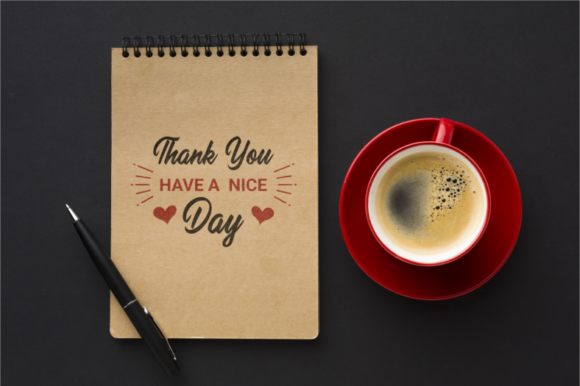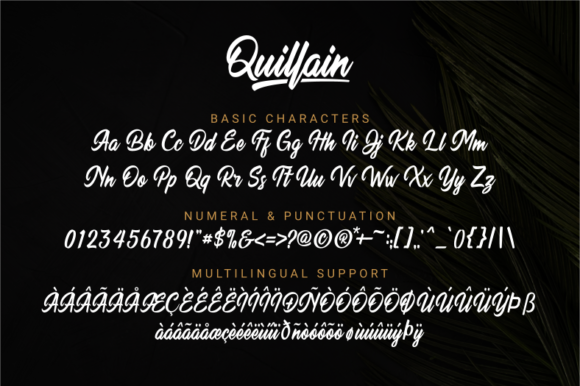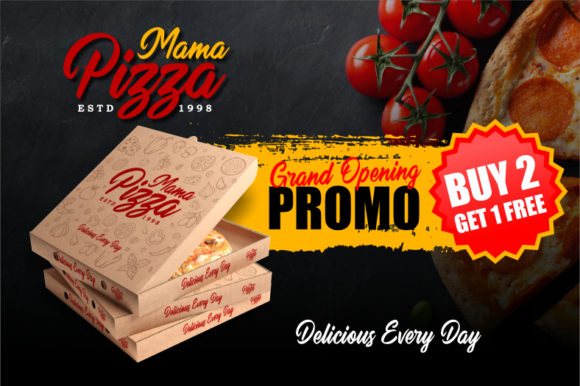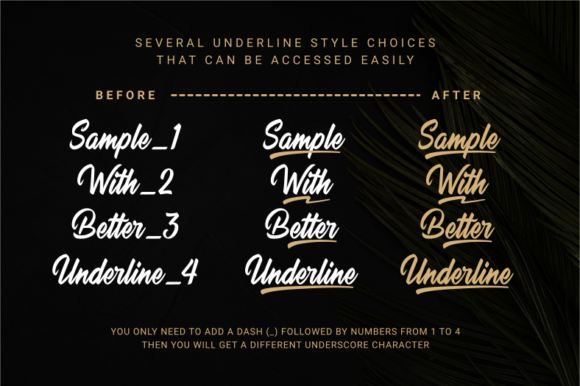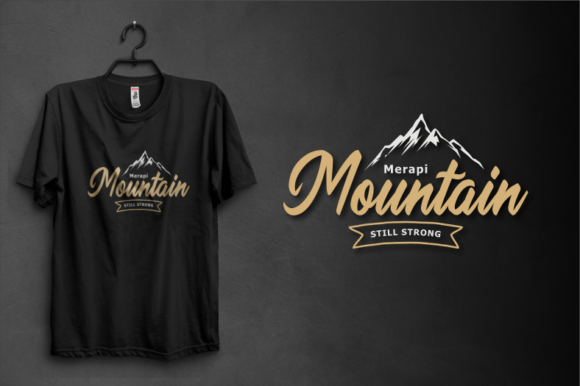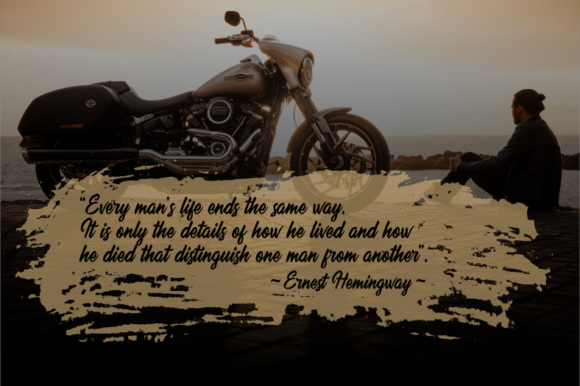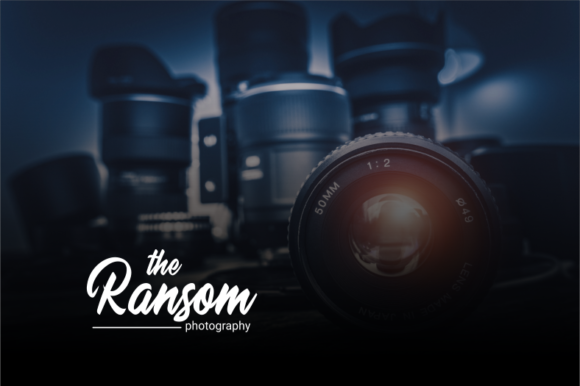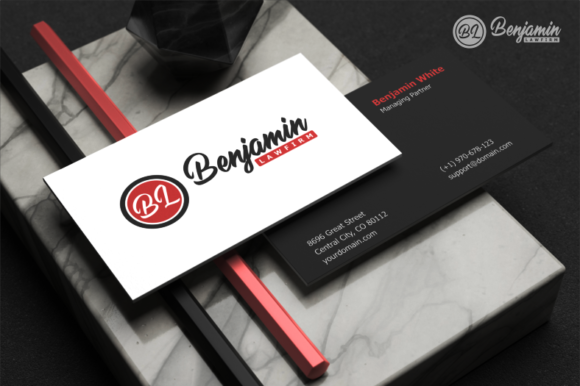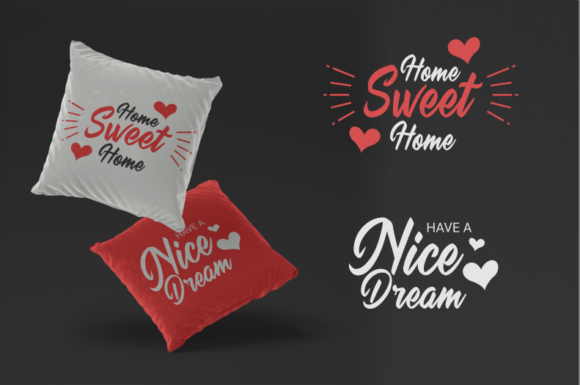
Quillain Font
About Quillain Font
Quillain is a casual, fun handwritten font, created by using a marker. Clean and stylish, this font is the perfect fit for all of your logos, branding, social media, and crafty DIY projects.